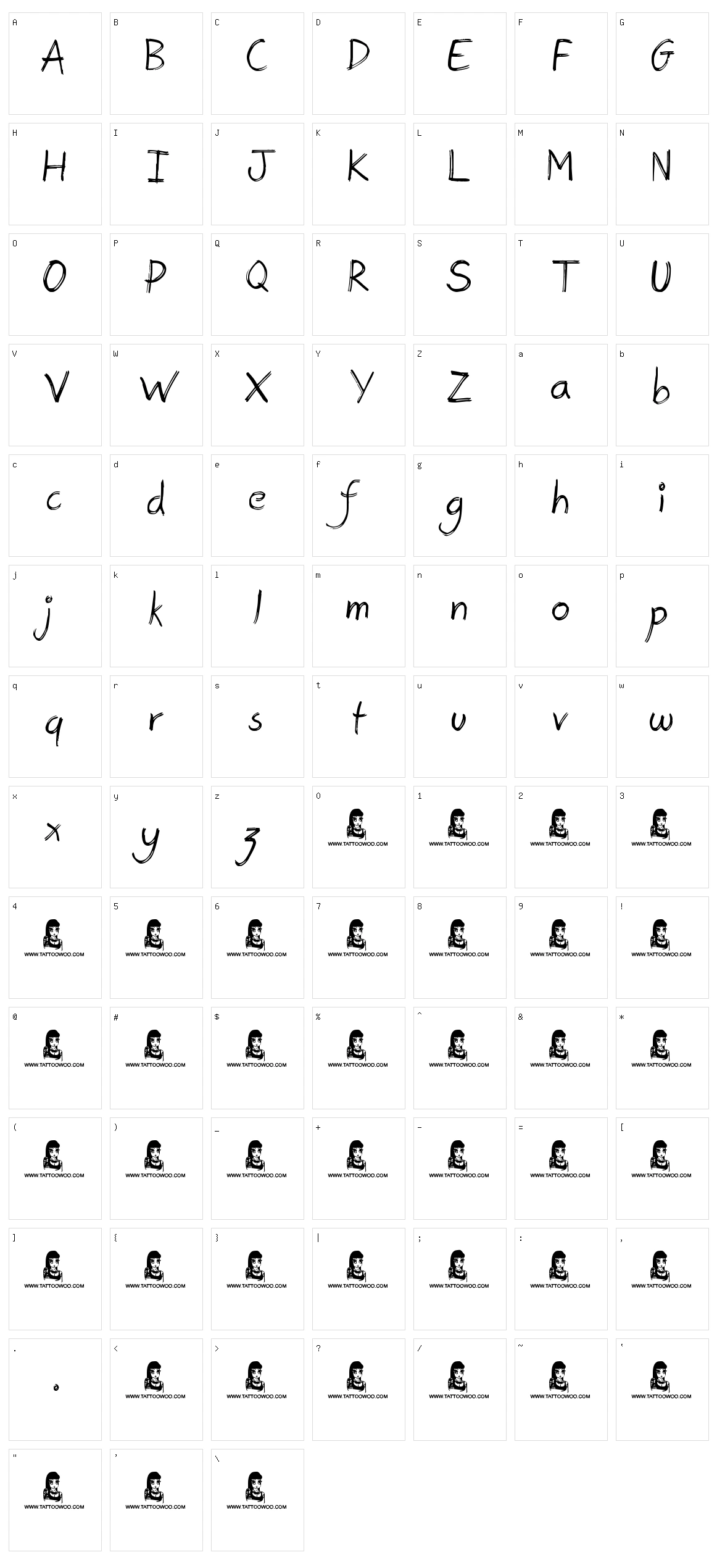
The free font Postcard From Mars is carefully designed by JSH creates, showcasing a thoughtful balance of creativity and usability and falls under the Trash font style. When you download the ZIP file, it contains only 15.81 KB of font files, making it lightweight and quick to download. Please review the license details below to understand permitted usage and distribution rights. If license information is not available, we recommend using this font for personal projects only or contacting the author directly for commercial usage permissions.